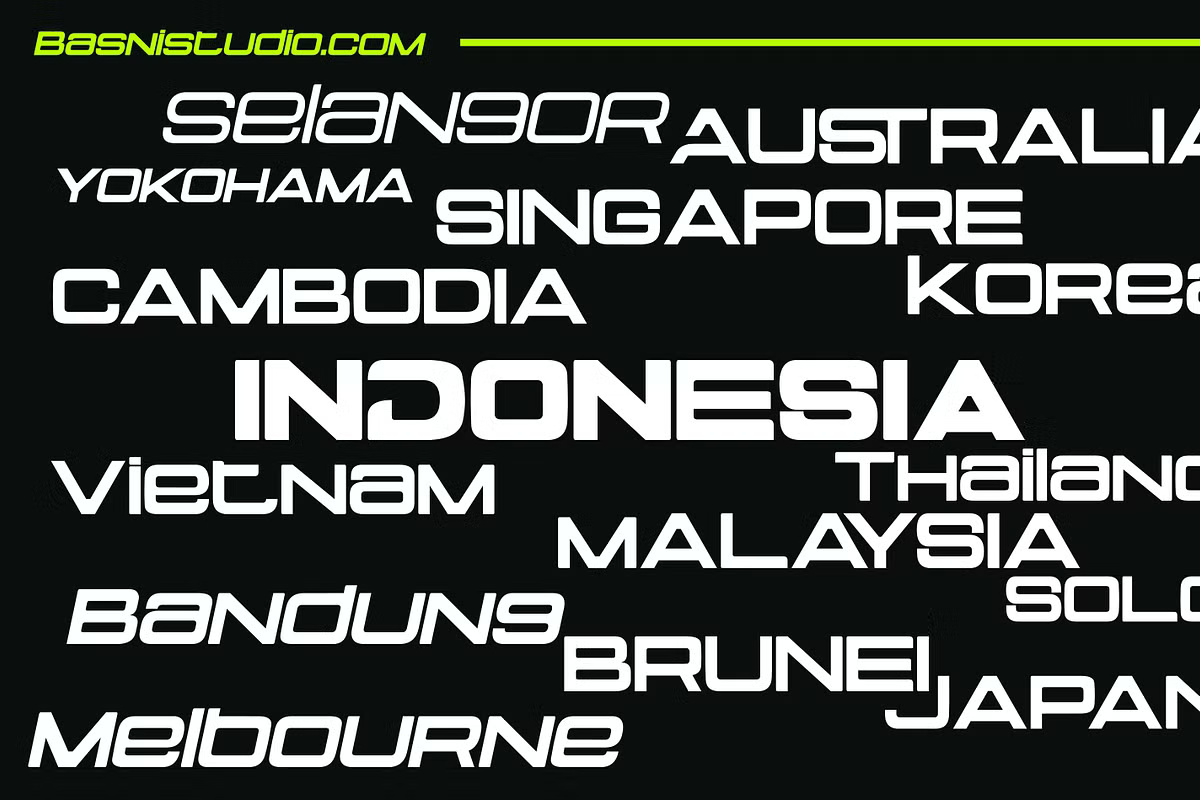
Minasans Font
Minasans has a fast, mechanical look. Letters are wide with squared curves, the M has a dropped middle and the lowercase is compact. The preview runs city and country names such as INDONESIA, MELBOURNE and Bandung at different sizes, like a tour poster.
Basni Studio made four styles: Light, Regular, Bold and Italic. There are alternates and ligatures for pairs like ss and st, plus accented letters. The free download is one OTF file. The Italic adds speed for sports layouts, and the Light weight works for small captions under a Bold title.
Best uses for Minasans
• Sports and racing brands
• Travel and tour posters
• Tech logos
• App headings
• Apparel
Pair Minasans with a calmer sans for text. Inter works well. Rajdhani keeps the sporty mood.
Minasans Sans Serif Font
How many styles does Minasans have?
Four: Light, Regular, Bold and Italic.
What free font is similar to Minasans?
Exo 2 and Saira are open licence sans fonts with a similar sporty feel.